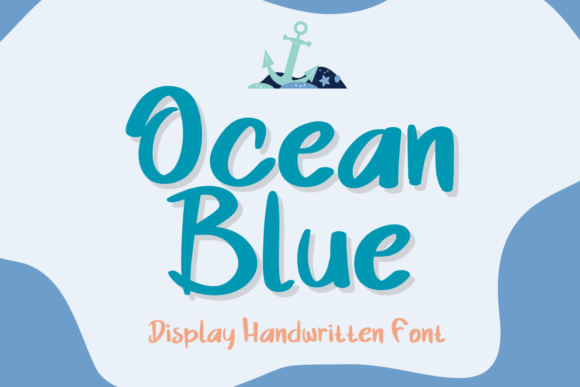
| 📌 Product Name | Blue Ocean Font |
| 👤 Author | DrextorLetters |
Meet the Blue Ocean Font, a playful and fun handwritten font that’s sure to bring a smile to your face. With its smooth, wavy letters, this font feels relaxed and casual, perfect for adding a friendly touch to your projects. Whether you’re designing a brand, a website, or a social media campaign, the Blue Ocean Font is the perfect addition to your toolkit.
Key Features of Blue Ocean Font
- Font Family: Blue Ocean Font is a unique, hand-drawn font designed to evoke a sense of calmness and serenity. It features a combination of rounded and geometric shapes, making it perfect for creative and artistic applications.
- Font Size: Blue Ocean Font comes in a range of sizes, from 8pt to 72pt, making it suitable for various design applications, from small text to large headings.
- Resolution: Optimized for high-resolution displays, Blue Ocean Font looks crisp and clear on screens with resolutions up to 4K (3840 x 2160 pixels).
- Unique Characteristics: The font features a unique blend of organic and geometric elements, giving it a distinctive look that sets it apart from other fonts. The subtle imperfections and variations in letterforms add to the font’s charm and character.
- Language Support: Blue Ocean Font supports a wide range of languages, including Latin, Cyrillic, Greek, and many others, making it a versatile choice for designers working on international projects.
Blue Ocean Font Review
As a designer, I’ve had the chance to work with a wide variety of fonts, and Blue Ocean is definitely one that stands out. Here’s my honest review.
- Unique and Fresh Design: Blue Ocean’s blend of modern and minimalist elements makes it perfect for branding and packaging design.
- Legibility: This font is incredibly easy to read, even at smaller font sizes.
- Customizability: Blue Ocean comes in a range of styles, from light to bold, making it versatile for different design applications.
- Limited Character Set: Blue Ocean’s character set is somewhat limited, which may be a problem for designers who need to use special characters or languages.
- Not Suitable for Body Text: While Blue Ocean is great for headings and titles, it may not be the best choice for body text due to its condensed width.
Blue Ocean is a great choice for designers who want a modern and unique font that makes a statement. While it has some limitations, its strengths make it a valuable addition to any design toolbox.
Blue Ocean Font Practical Application Guide
Blue Ocean Font is ideal for creating a calming and soothing atmosphere in designs. Use it for headings, titles, and body text to create a consistent visual brand. It works well for designs related to nature, wellness, and spirituality. Experiment with different font sizes and colors to create a unique look.
Alternatives to Blue Ocean Font
Blue Ocean Font is a popular sans-serif font known for its clean and modern design. However, it may not be the best fit for every project. Here are a few alternatives that designers can consider.
Open Sans is a modern sans-serif font that is highly legible and versatile. It is designed for digital interfaces and is suitable for a wide range of applications, from body text to headings. Open Sans is more geometric in design compared to Blue Ocean Font, which makes it a good choice for modern and minimalist designs.